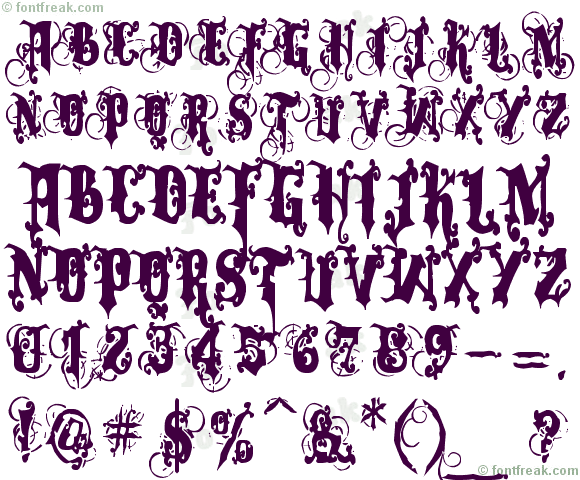
Dominatrix
The Dominatrix font by Bolt Cutter is a striking display typeface that captures attention with its bold and dramatic aesthetic. Characterized by sharp, angular strokes and intricate decorative elements, this font embodies a unique blend of elegance and edginess. The stroke weight varies, creating a pronounced contrast that enhances its visual impact, while the spacing between letters allows for clarity and legibility, making it suitable for both large headlines and detailed text.
This font excels in a variety of use cases, making it a versatile choice for graphic designers and content creators alike. It is particularly effective for creating eye-catching movie posters, where its dramatic flair can convey intensity and excitement. Additionally, the Dominatrix font is an excellent choice for branding and logo design, especially for businesses in the fashion, nightlife, or alternative sectors. It can also elevate restaurant menus, giving them a unique character, and is perfect for promotional materials that aim to stand out.
Targeting graphic designers, small business owners, and content creators, the Dominatrix font offers a distinctive style that enhances visual communication. Its availability as a freeware makes it accessible to those looking to incorporate a touch of sophistication and boldness into their projects without budget constraints.
What truly sets the Dominatrix font apart is its ability to evoke strong emotions and create a memorable visual experience. Its combination of decorative flair and readability makes it a standout option for anyone seeking to make a bold statement in their design work. For those interested in this captivating typeface, a Dominatrix font free download is readily available, allowing you to infuse your projects with this extraordinary style.